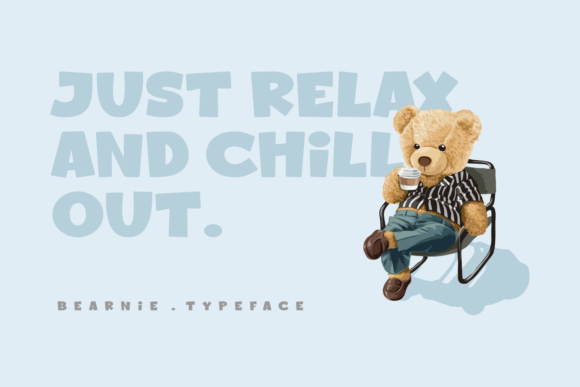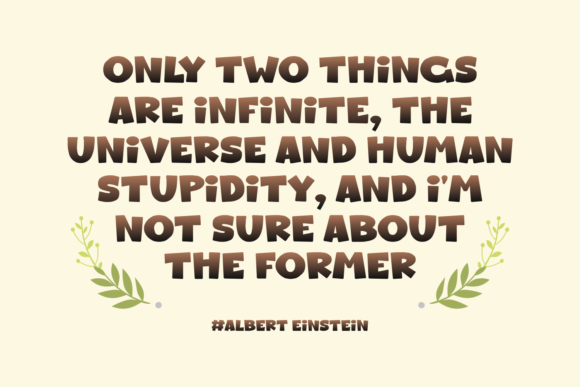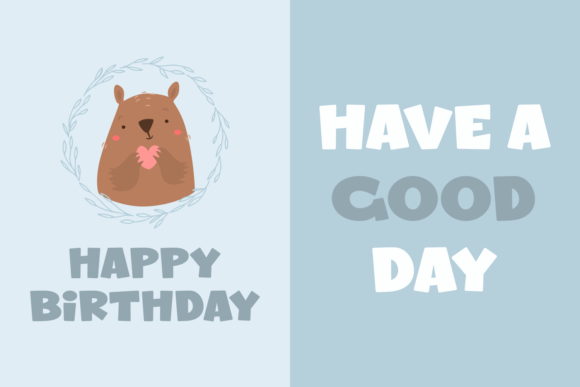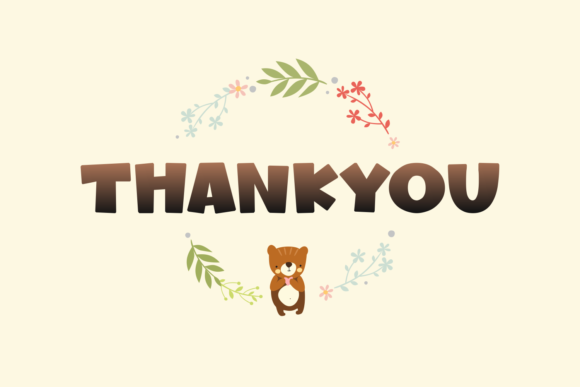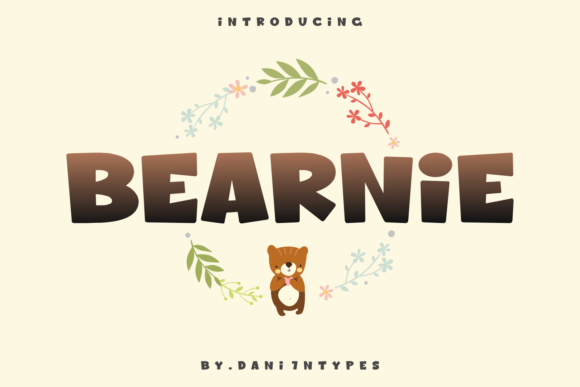
Bearnie Font: The Ultimate Display Font for Fun and Playful Designs
Are you looking for a font that can add a touch of fun and playfulness to your designs? Look no further than Bearnie Font! This cool, thick lettered, and fun looking display font is perfect for cartoon related designs, children’s games, and any creation that requires a lovely touch. In this article, we’ll dive into the features and benefits of Bearnie Font, and explore how you can use it to take your designs to the next level.
What is Bearnie Font?
Bearnie Font is a display font designed to make a statement. Its thick, bold letters and fun, playful vibe make it perfect for designs that need to stand out. Whether you’re creating a logo, a poster, or a social media graphic, Bearnie Font is sure to grab attention. The font is highly versatile, and can be used for a wide range of projects, from children’s books and games to cartoon-style animations and more.
Key Features of Bearnie Font
- Thick, bold letters: Bearnie Font features thick, bold letters that are perfect for creating eye-catching headlines and titles.
- Fun, playful vibe: The font has a fun, playful vibe that’s perfect for designs that need to be lighthearted and engaging.
- Highly versatile: Bearnie Font can be used for a wide range of projects, from children’s books and games to cartoon-style animations and more.
- Easily readable: Despite its bold, thick letters, Bearnie Font is easily readable, even at small sizes.
Benefits of Using Bearnie Font
So why should you choose Bearnie Font for your next design project? Here are just a few benefits of using this amazing font:
- Adds a touch of fun and playfulness: Bearnie Font is perfect for designs that need to be fun and engaging. It adds a touch of playfulness that can help to capture your audience’s attention.
- Perfect for cartoon-style designs: If you’re creating cartoon-style designs, Bearnie Font is a perfect choice. Its bold, thick letters and fun vibe are perfect for creating characters and graphics that are reminiscent of classic cartoons.
- High-quality design: Bearnie Font is designed to high-quality standards, ensuring that your designs look professional and polished.
How to Use Bearnie Font in Your Designs
Using Bearnie Font in your designs is easy! Here are a few tips to get you started:
- Use it for headlines and titles: Bearnie Font is perfect for creating eye-catching headlines and titles. Use it to add a touch of fun and playfulness to your designs.
- Experiment with different colors: Bearnie Font looks great in a wide range of colors. Experiment with different colors to find the one that works best for your design.
- Combine it with other fonts: Bearnie Font can be combined with other fonts to create a unique and interesting design. Try pairing it with a sans-serif font for a fun and playful look.
In conclusion, Bearnie Font is a cool, thick lettered, and fun looking display font that’s perfect for cartoon related designs, children’s games, and any creation that requires a lovely touch. Its highly versatile, easily readable, and perfect for adding a touch of fun and playfulness to your designs. With its high-quality design and ease of use, Bearnie Font is a great choice for designers and crafters of all levels. So why not give it a try and see how it can take your designs to the next level?